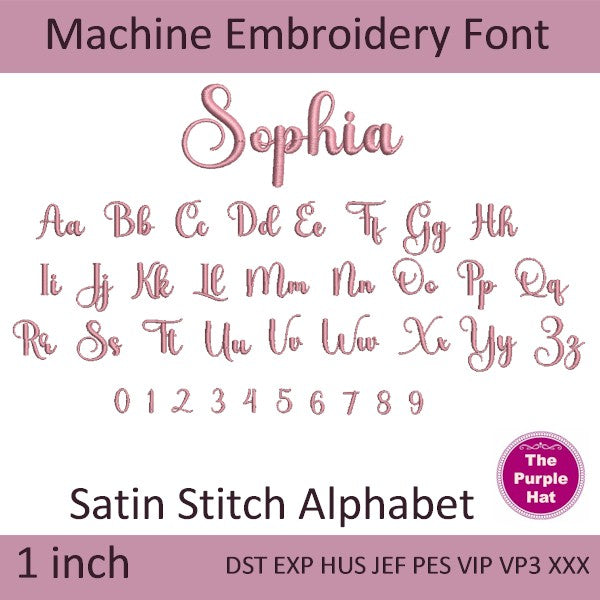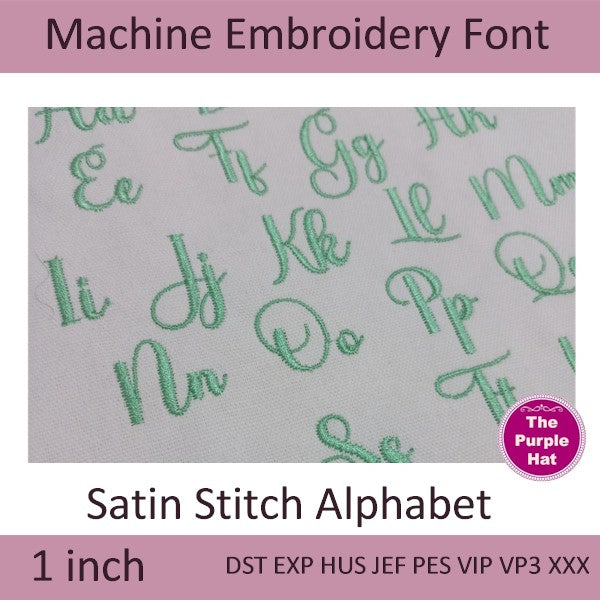
Sophia satin stitch machine embroidery font 1 inch
Elevate your embroidery projects with the timeless beauty of the Sophia Satin Stitch Font. This elegant 1-inch font features smooth, flowing strokes in a modern calligraphy style, making it perfect for monograms, names, and meaningful quotes. Sophia adds a personal, handcrafted touch to everything from wedding accessories to baby gifts.
đź§µ Name: Sophia
đź” Uppercase Letters: A-Z
🔢 Lowercase: a-z
🎀 Numbers: 0-9
📏 Size: 1 inch
✨ Style: Satin stitch